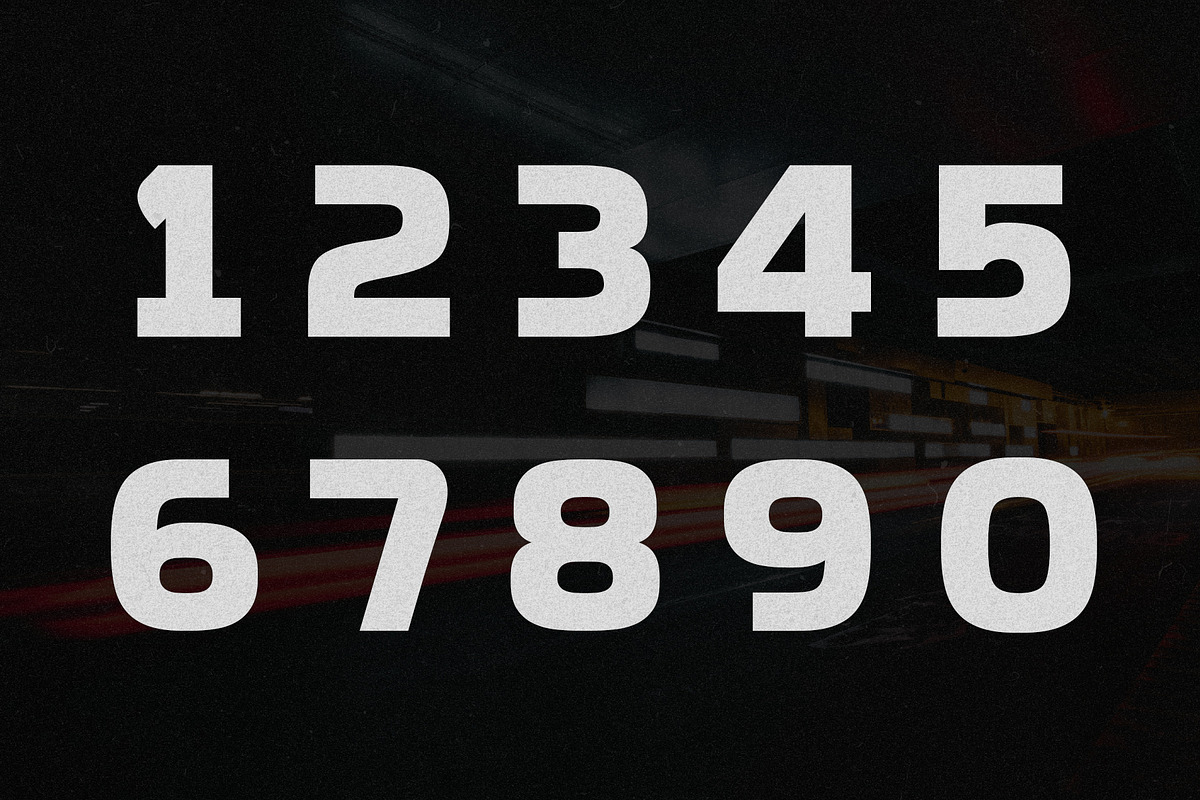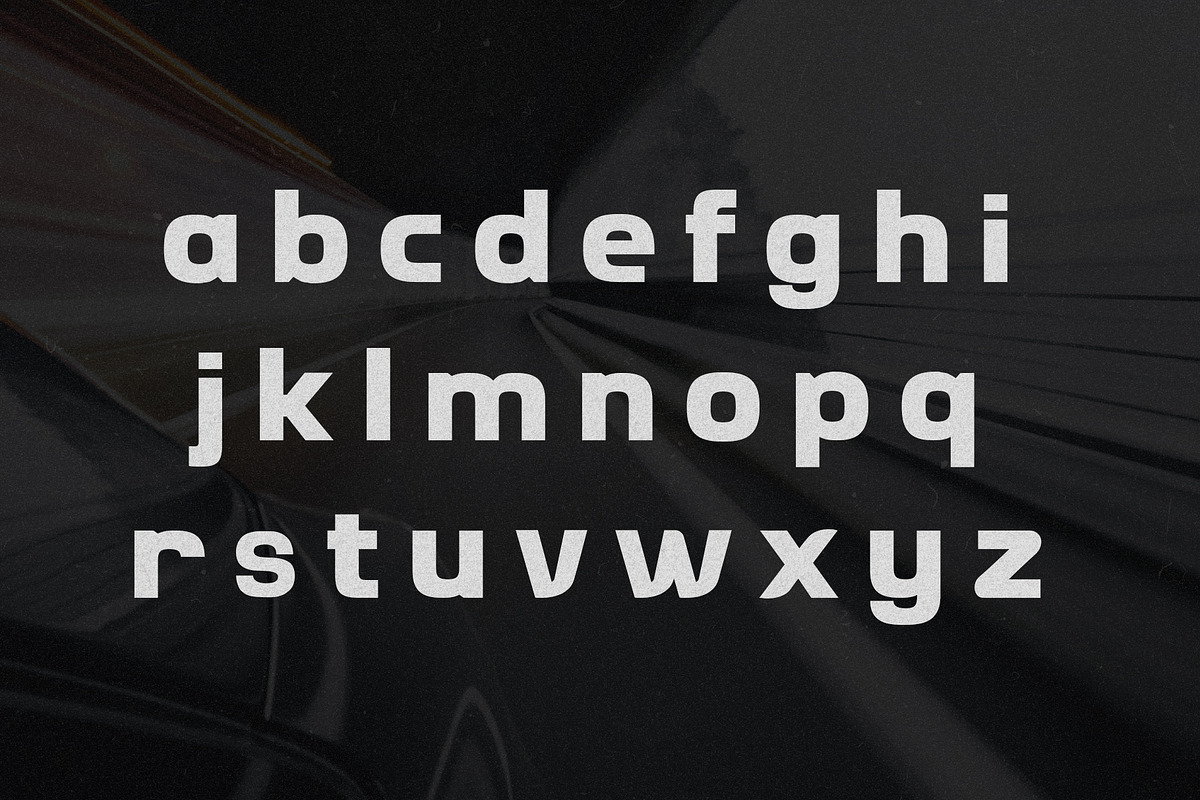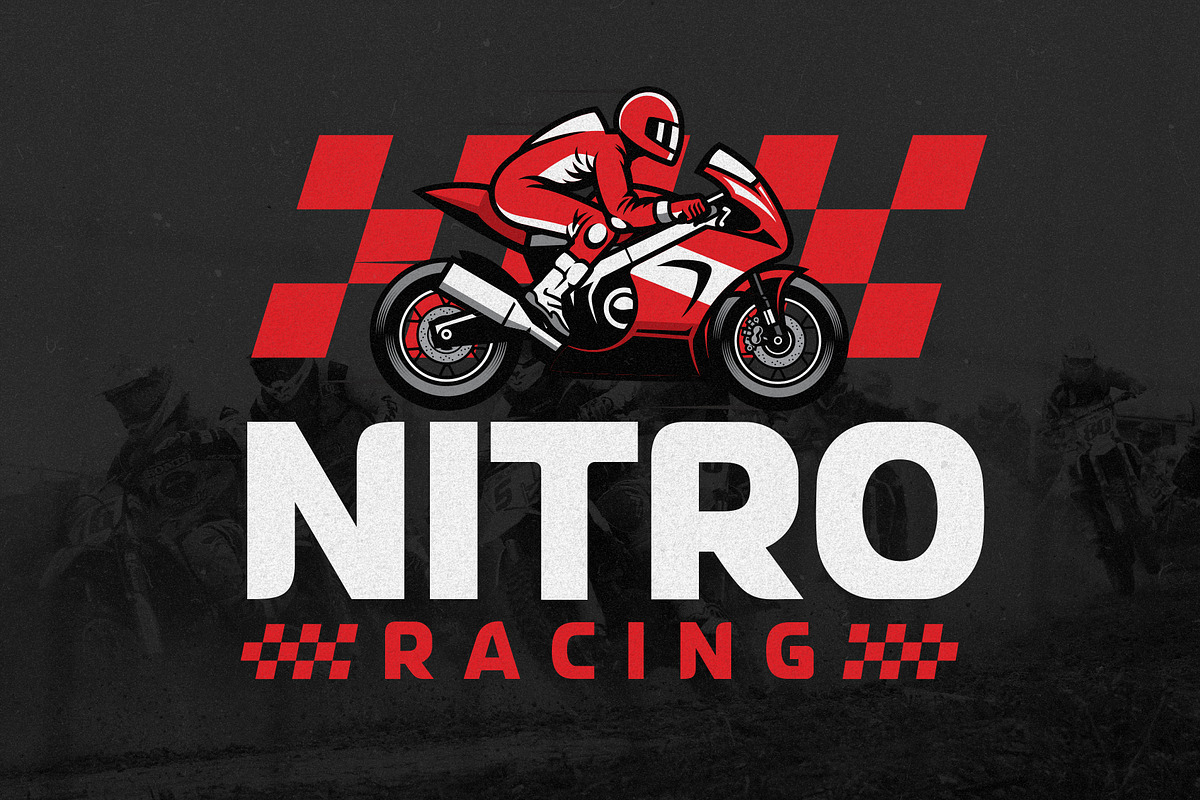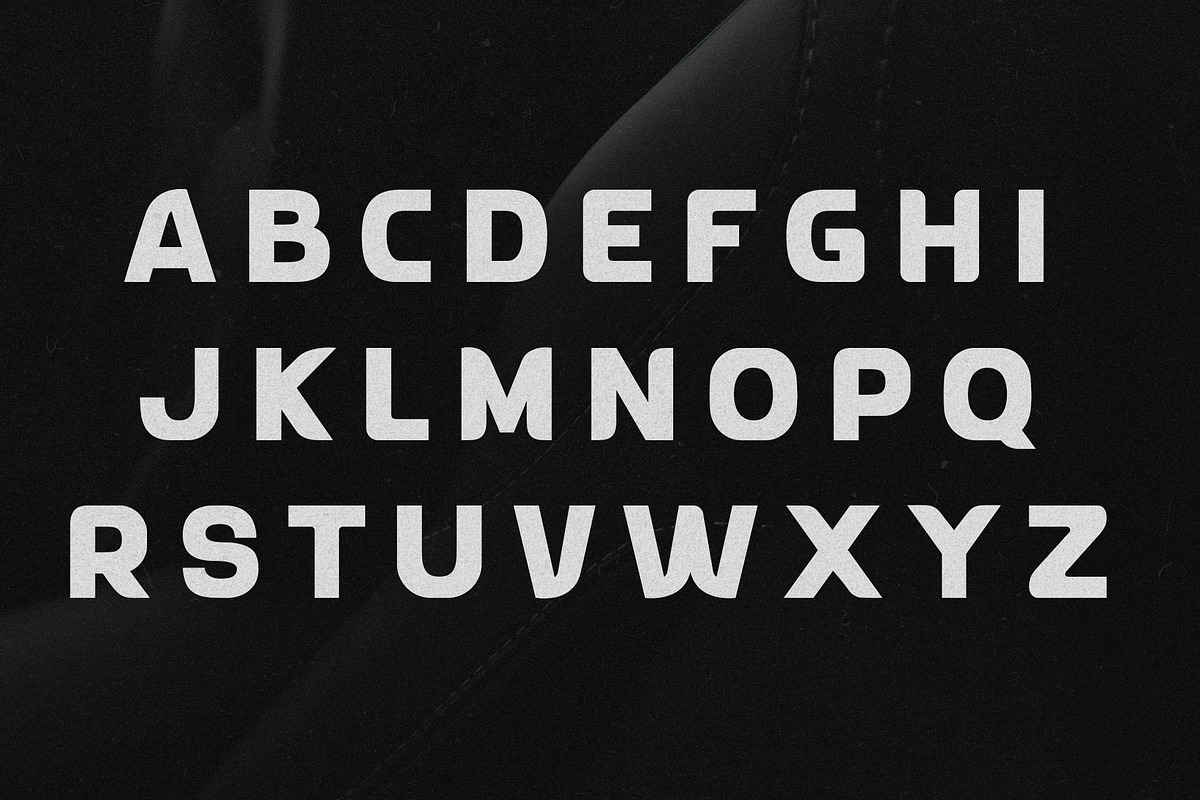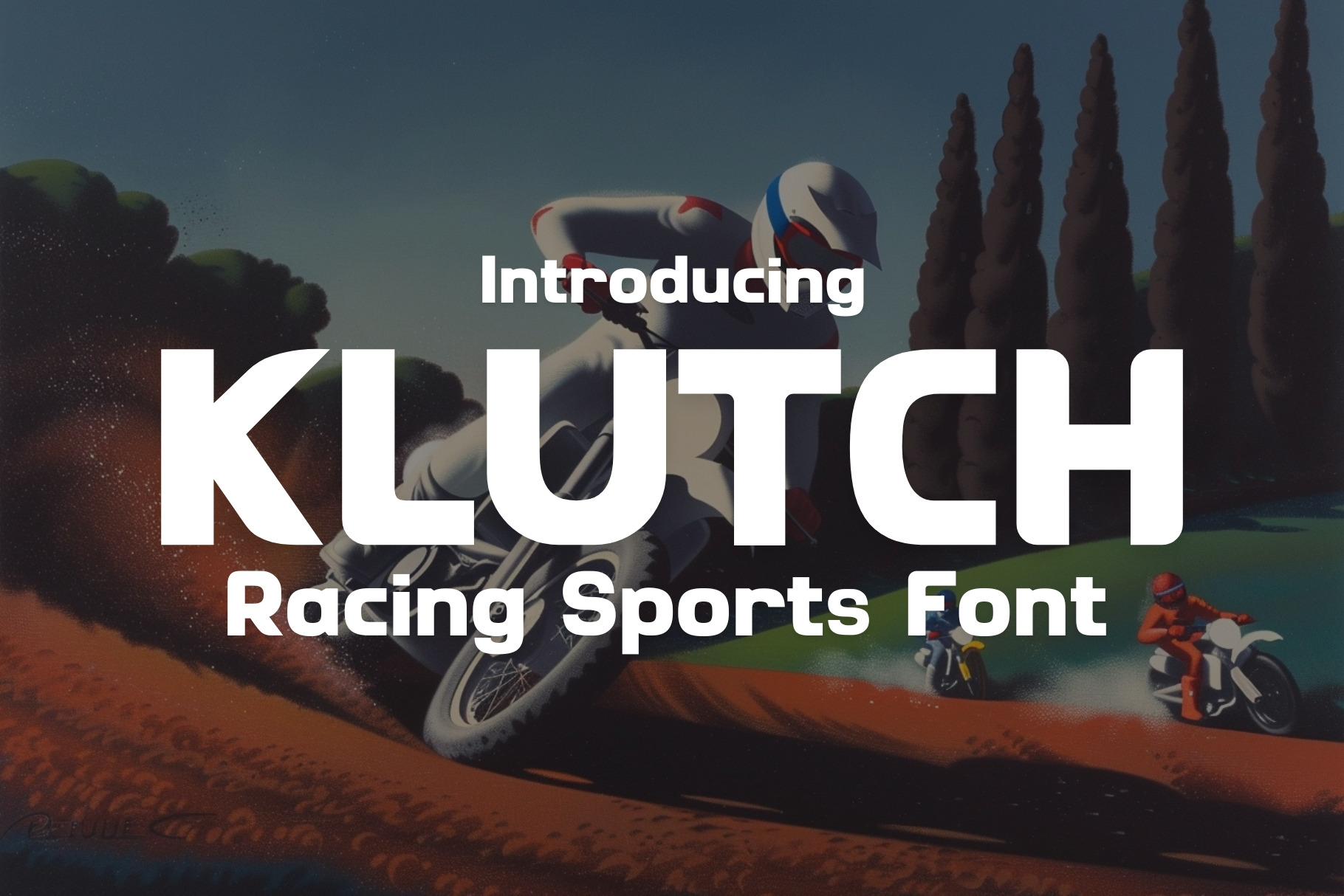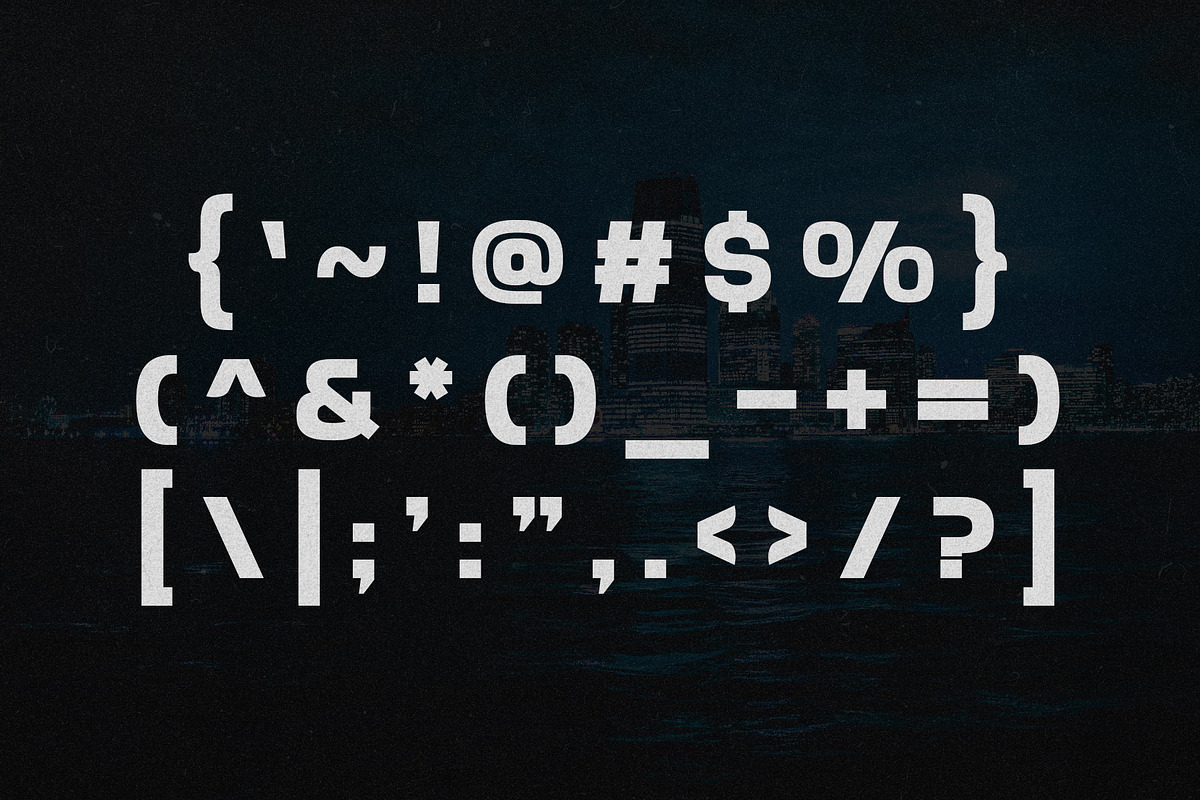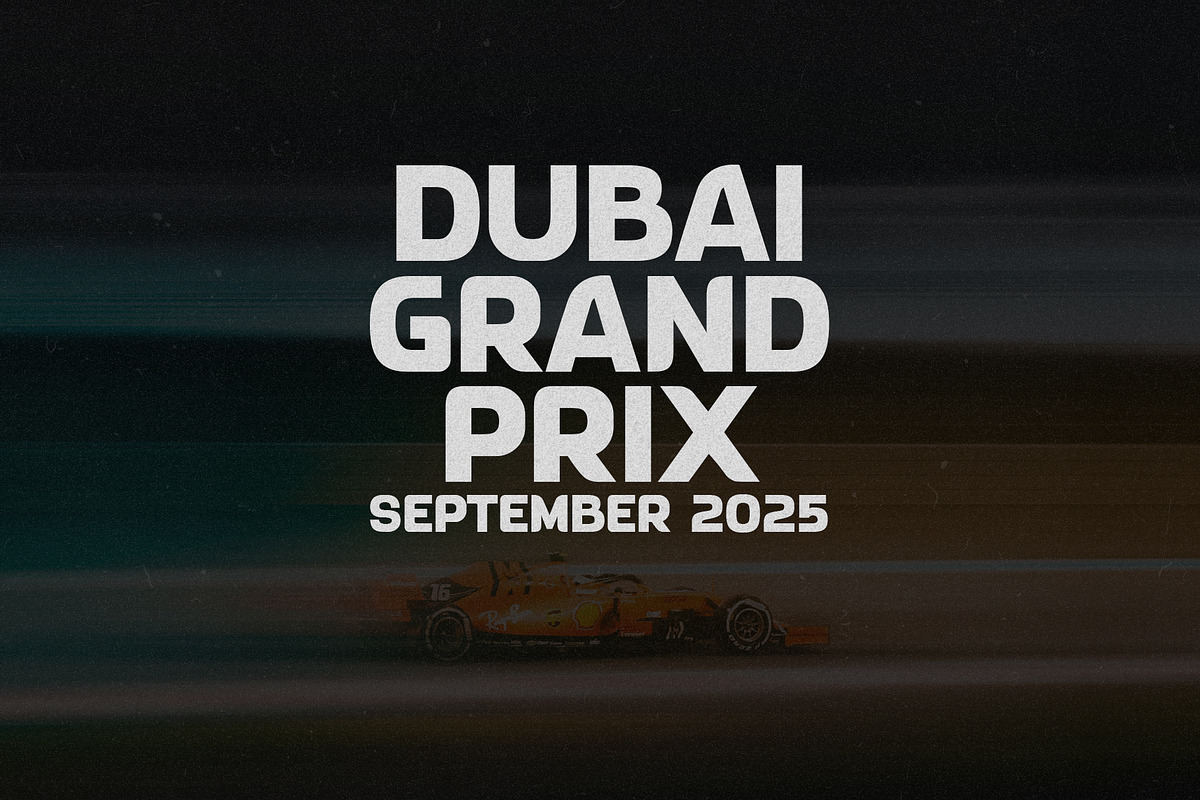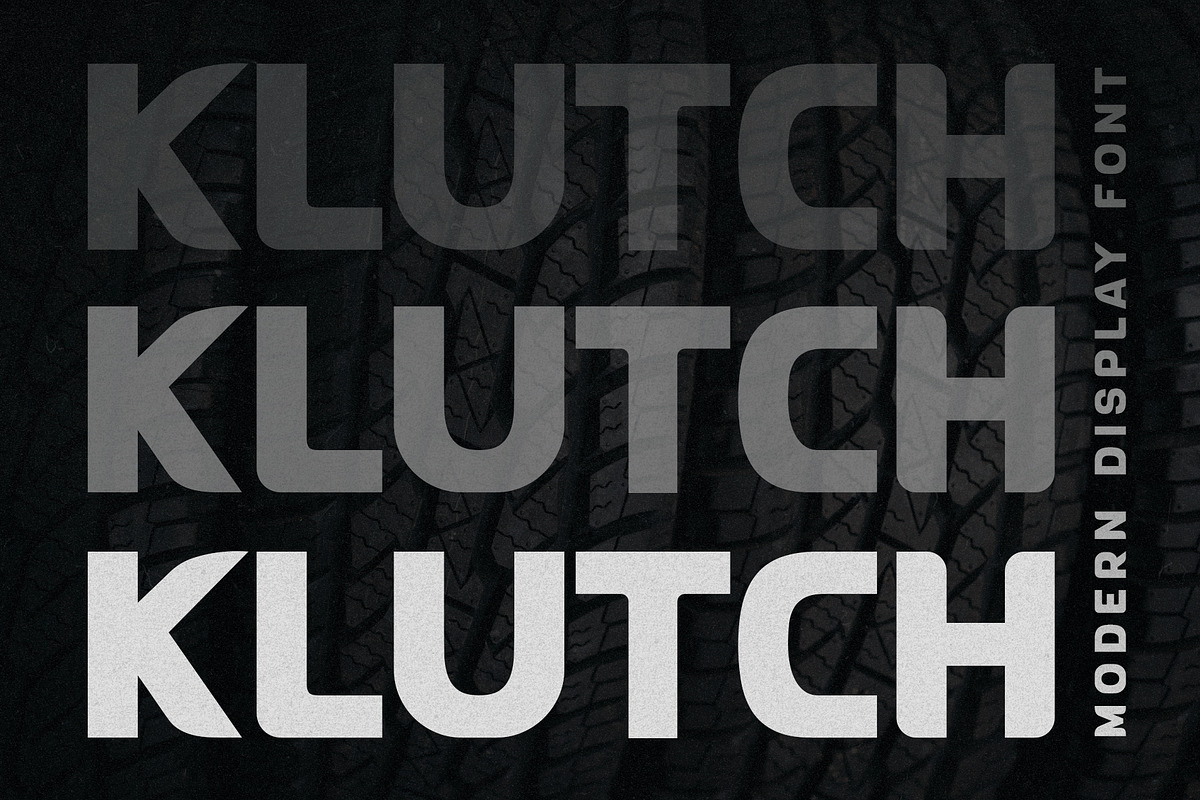
Klutch - Modern Display Font
Klutch is a beautiful racing themed typeface. It's ideal for sports headlines, editorials, racing posters, esports, branding, website design, advertising and much more. If you're looking for a beautiful typeface that creates the effect of power and speed, then Klutch is for you.